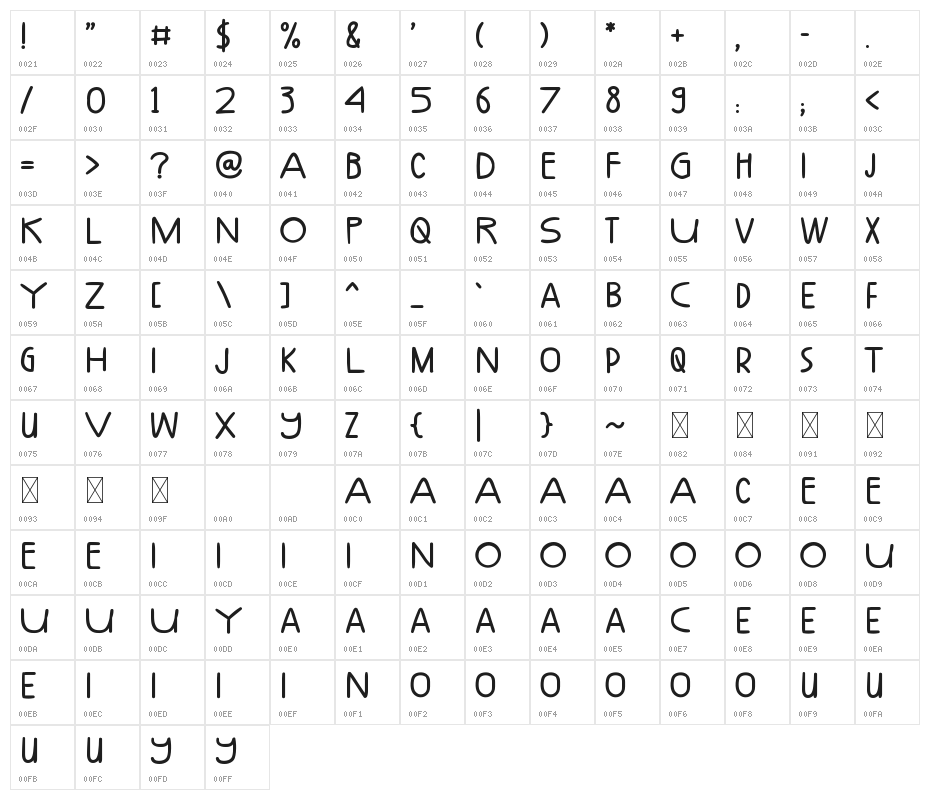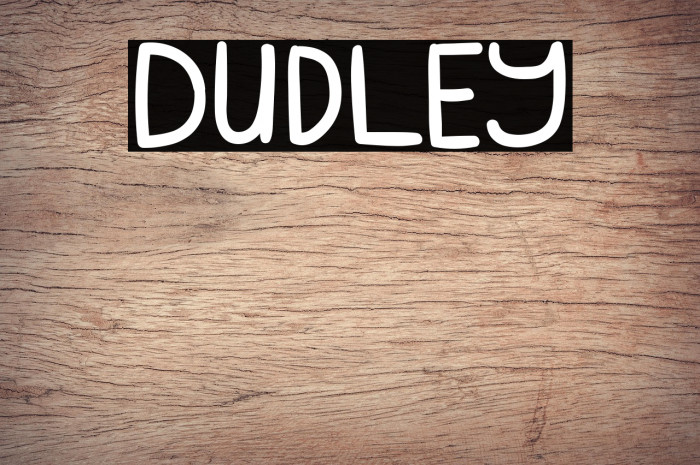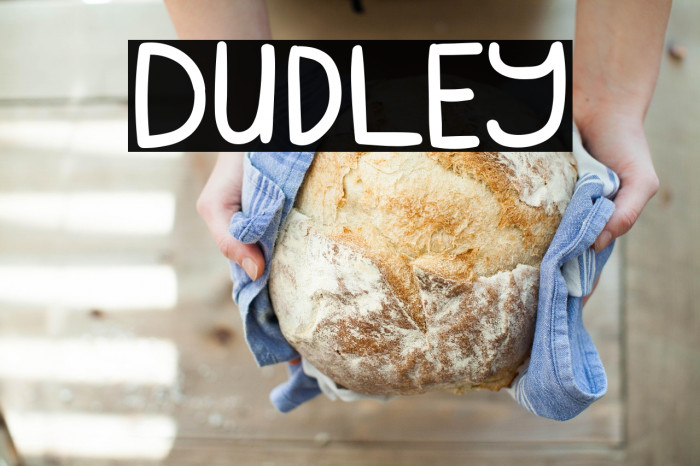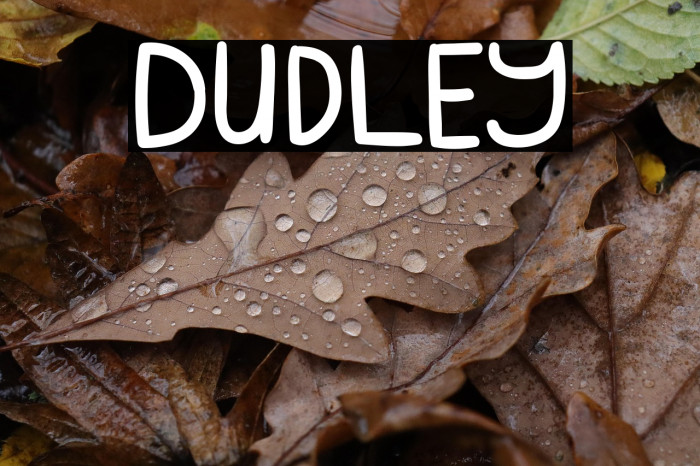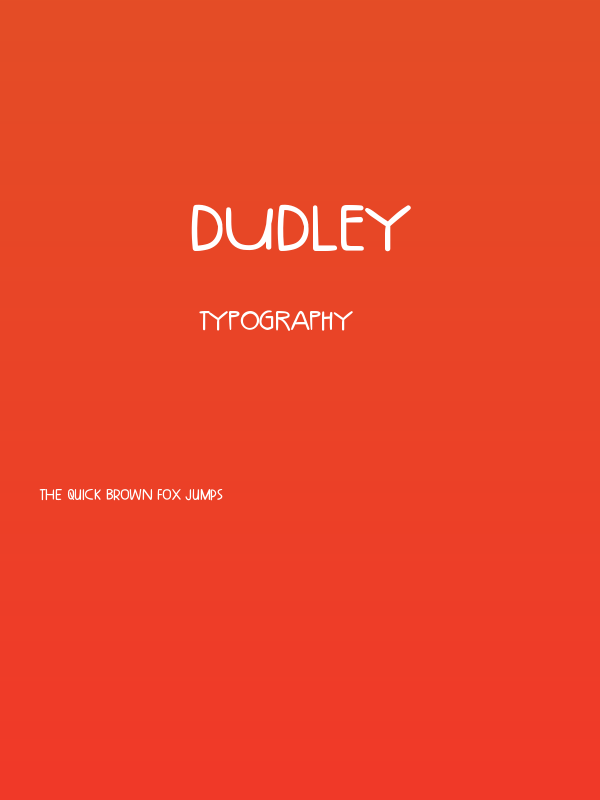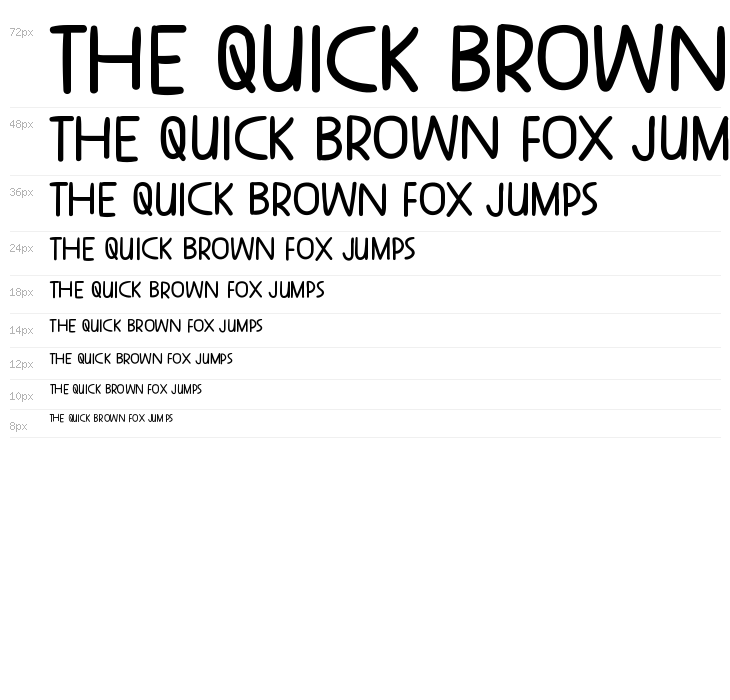
Dudley Font
Dudley Description
A playful, handwritten font with rounded edges and a casual style, suitable for informal and friendly designs.
| Use Case | Headlines, Informal text, Branding |
| Proposed Projects | Greeting cards, children's books, casual branding. |